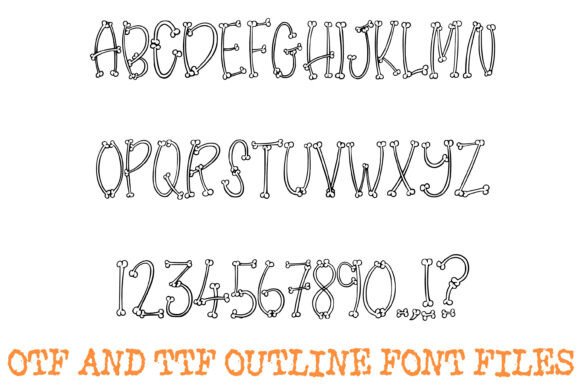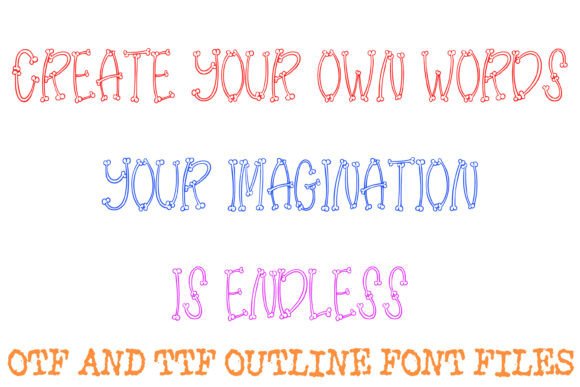
Introduction to Skinny Bones Font Font
Fonts play a crucial role in design, and the Skinny Bones Font font is a typeface that brings both character and versatility to any project. Whether you’re working on a branding project, a website, or a print design, the Skinny Bones Font font offers a unique style that can elevate your work.
The Skinny Bones Font is a premium, hand-drawn skeleton display typeface that brings a delicate, βcreepy-cuteβ aesthetic to the spooky season.
Each character is meticulously sculpted from elongated, slender bone structures, offering a tall and narrow silhouette that is perfect for high-impact vertical designs It is the ultimate tool for Halloween branding, trick-or-treat apparel, and boutique holiday decor.
Key Features of Skinny Bones Font Font
Why Choose Skinny Bones Font Font?
The Skinny Bones Font font is more than just a typeface β it’s a design tool that helps you communicate your message with style and clarity. Its unique character set and versatile design make it suitable for a wide range of applications, from elegant invitations to bold headlines.
With its carefully crafted letterforms and balanced proportions, the Skinny Bones Font font ensures readability and visual appeal across all mediums.
What makes Skinny Bones Font font special?
The Skinny Bones Font font stands out with its unique design, exceptional readability, and versatility across various design applications.